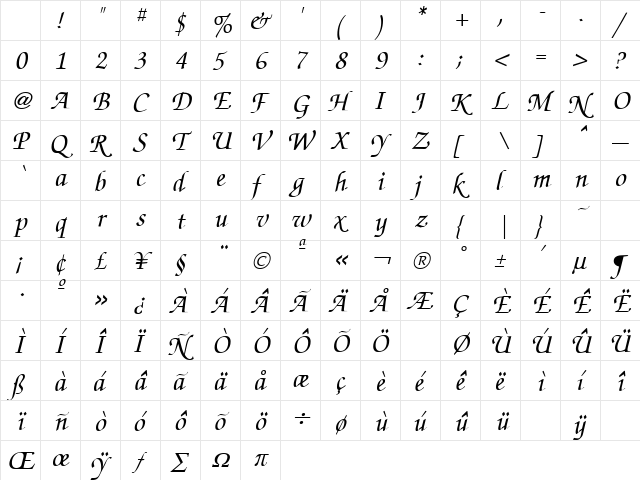
Complete Zapf Chancery Medium Italic glyph index. Displaying only characters natively supported by Zapf Chancery Medium Italic font.
Zapf Chancery Medium is a composed and adaptable typeface that performs quietly and consistently across a wide range of design contexts. The slanted form adds forward momentum and visual energy.
Pro Tip: Use Zapf Chancery Medium for emphasis, pull quotes, and subheadings where its slanted energy can add rhythm to the layout.